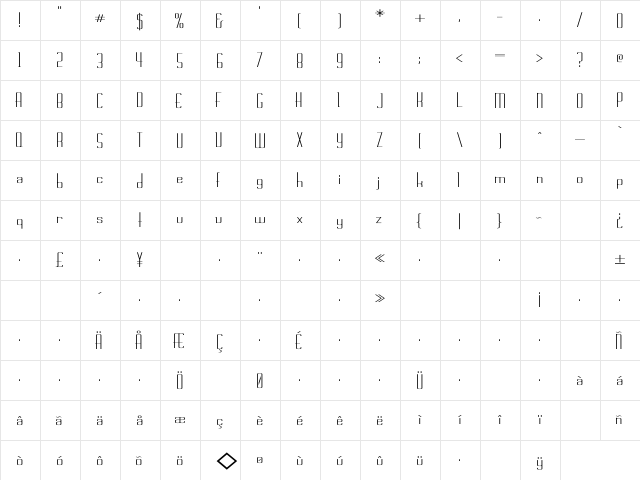
Rschasline Ex Regular
Design Context for Rschasline Ex Typeface
Rschasline Ex is a composed and adaptable typeface that performs quietly and consistently across a wide range of design contexts.